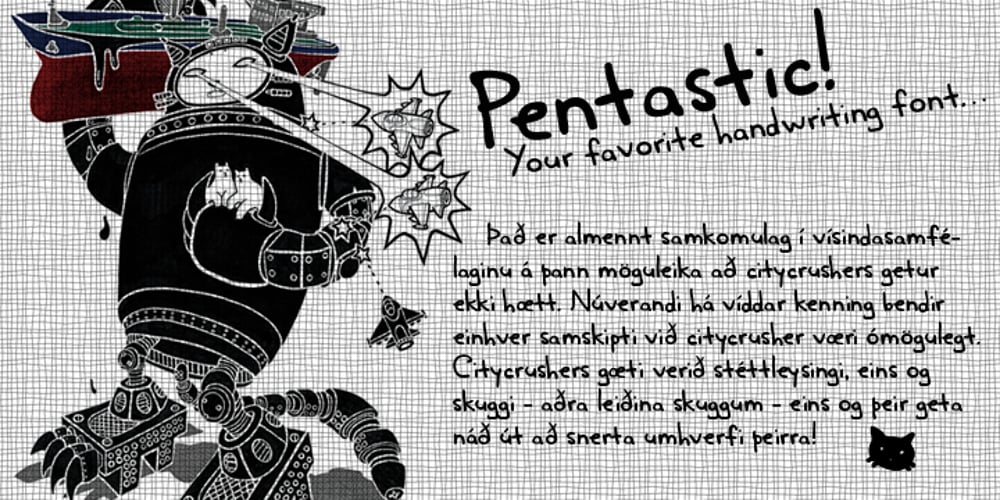
Pentastic
Pentastic font
Pentastic Font Family was designed by Natsuko Hayashida and published by Okaycat. Pentastic contains 1 styles and family package options. Pentastic is a natural hand printed font designed for the look of written by pen. Clear legible style yet cute and fun. Pentastic features extended characters, containing West European diacritics and ligatures, making it suitable for international environments and publications.